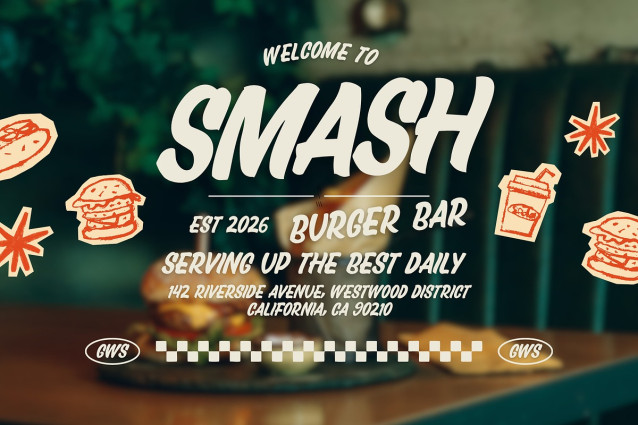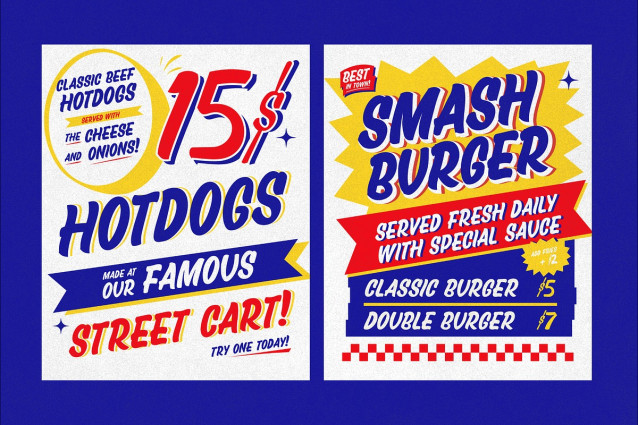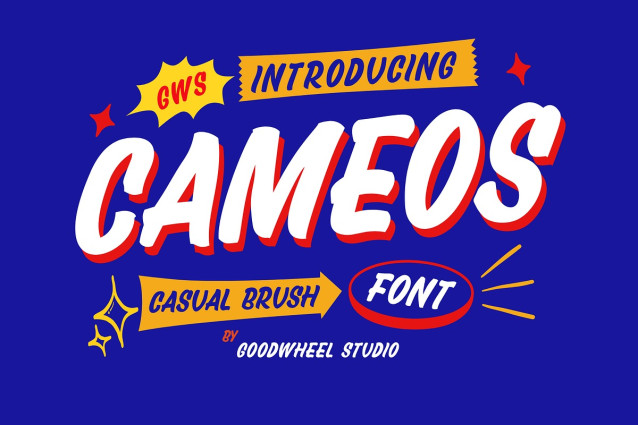
Cameos Font
Cameos Font is a bold vintage display font inspired by hand-painted signage, classic advertising, and retro storefront lettering. Featuring expressive brush strokes, smooth curves, and authentic handcrafted character, Cameos brings a nostalgic yet energetic personality to any design. Its strong presence makes it perfect for logos, packaging, posters, restaurant menus, beverage labels, apparel, branding projects, and social media graphics. Designed to capture the charm of mid-century typography, this font combines readability with distinctive visual appeal. Whether you’re creating a retro-inspired brand or adding a touch of timeless craftsmanship to modern projects, Cameos delivers warmth, character, and unforgettable vintage style.